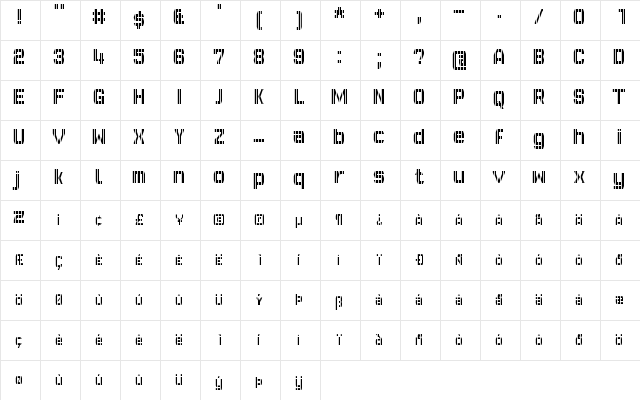
GVB Bus PID 10x7 Regular
| Designer | Jeffrey Visser |
Design Context for GVB Bus PID 10x7 Typeface
GVB Bus PID 10x7 takes a measured approach to typography — its balanced proportions and neutral character make it a reliable workhorse for both digital and print work.